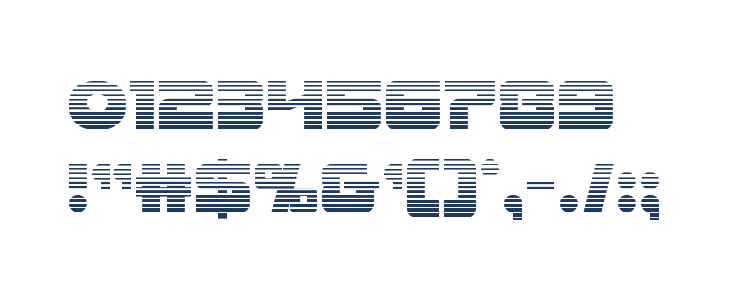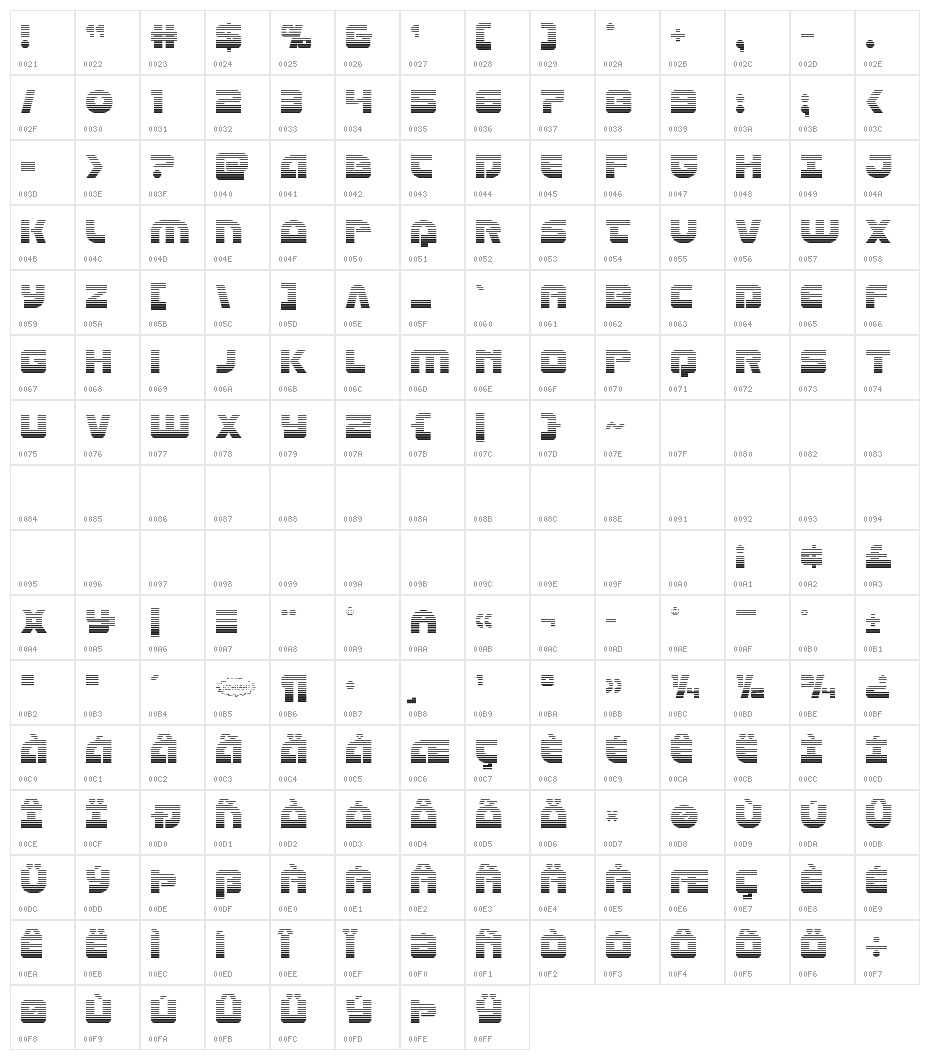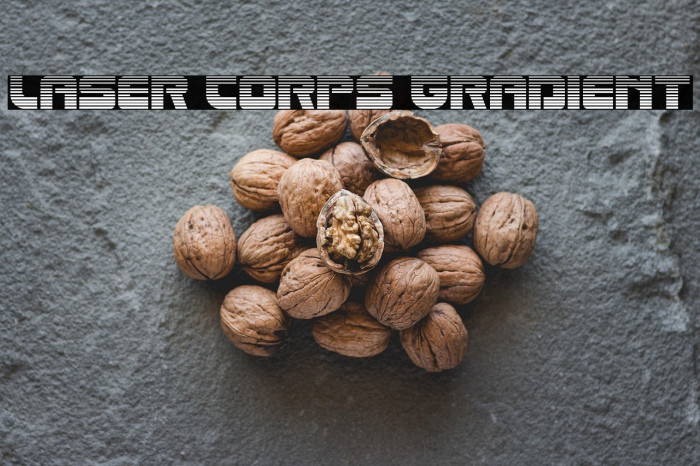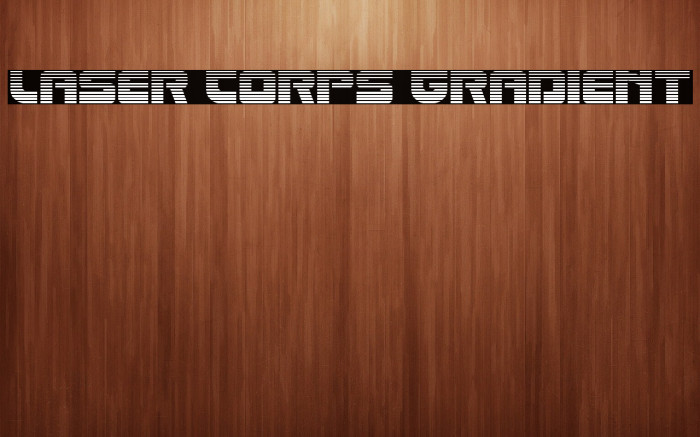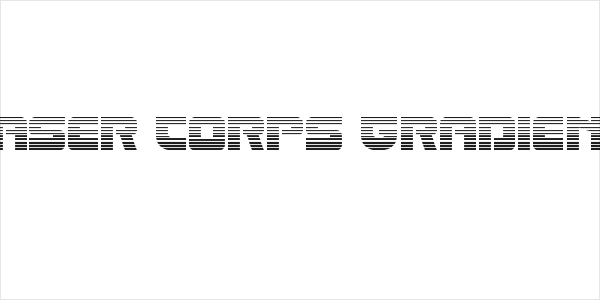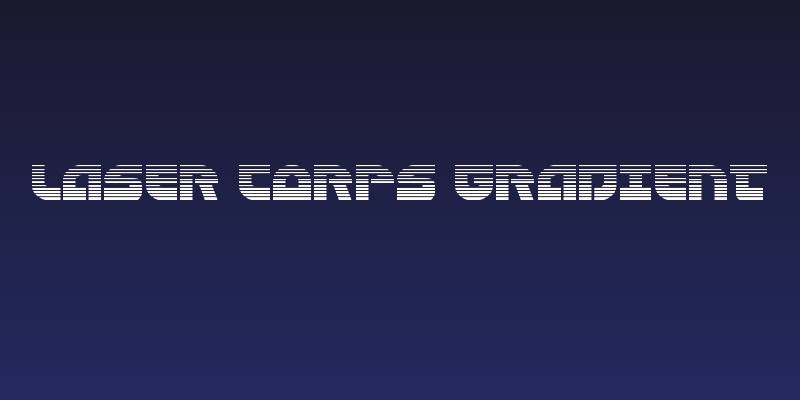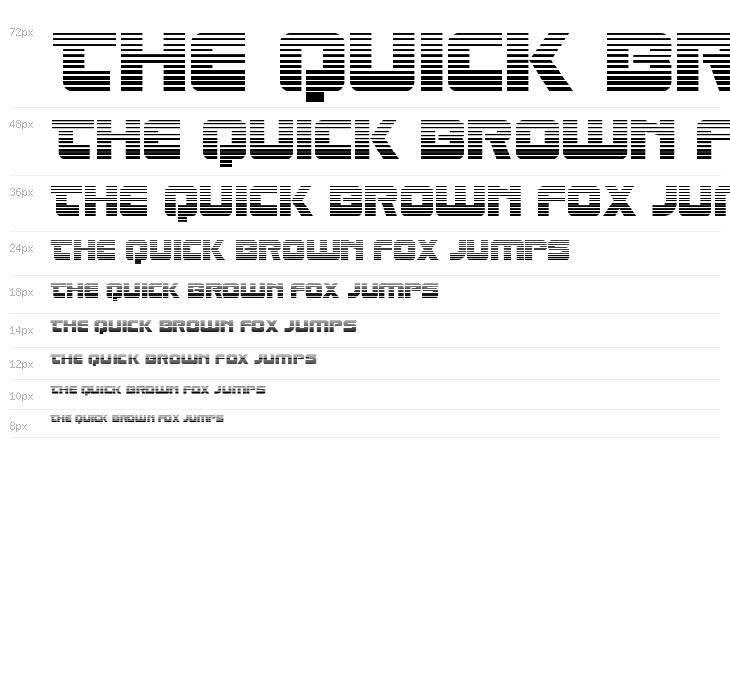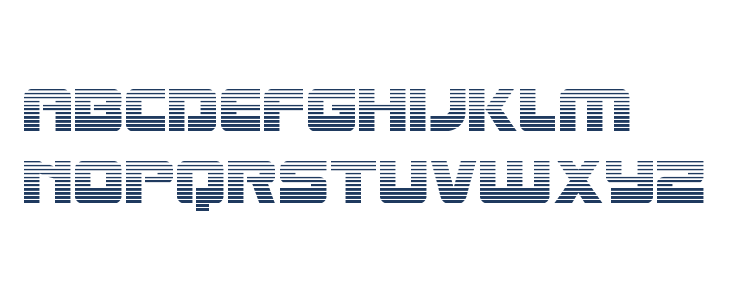
Laser Corps Gradient Font
Laser Corps Gradient Description
This font features a futuristic and bold design with a distinct horizontal line pattern running through each character, creating a gradient effect. The uppercase and lowercase letters, along with numbers and special characters, maintain a consistent style that emphasizes a modern, tech-inspired aesthetic. The characters are wide and have a geometric structure, making them stand out with a strong visual presence. The unique line pattern adds depth and dimension, making it suitable for projects that require a cutting-edge look.
| Proposed Projects | Ideal for sci-fi themed designs, tech branding, video game titles, and futuristic posters. |